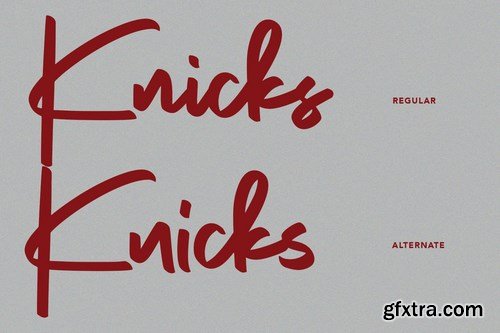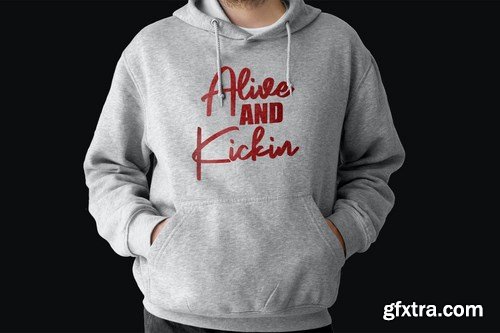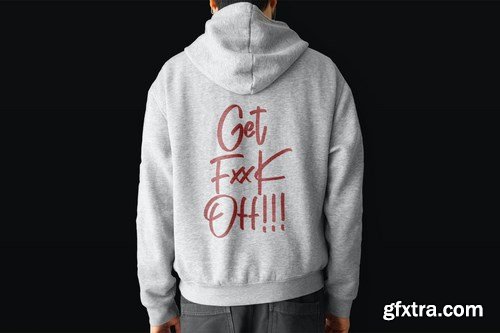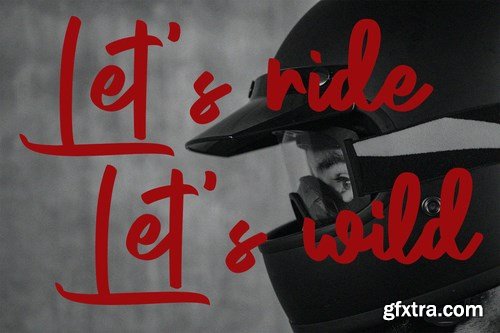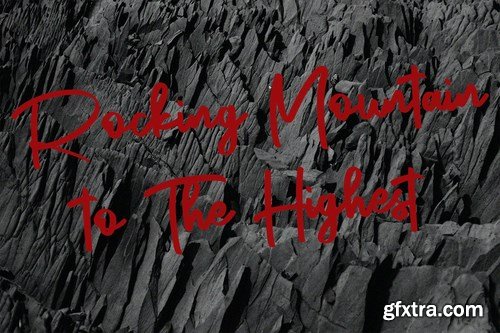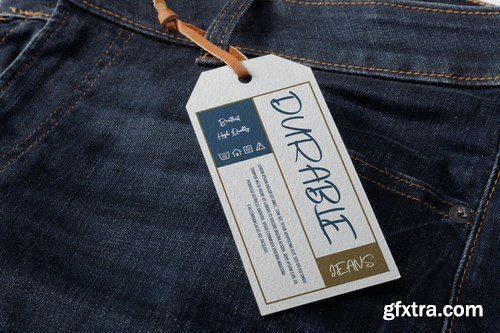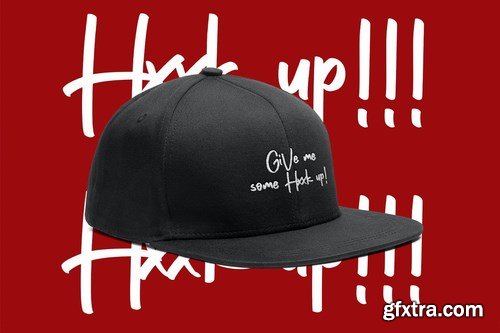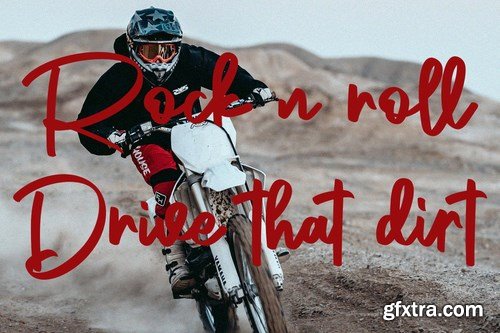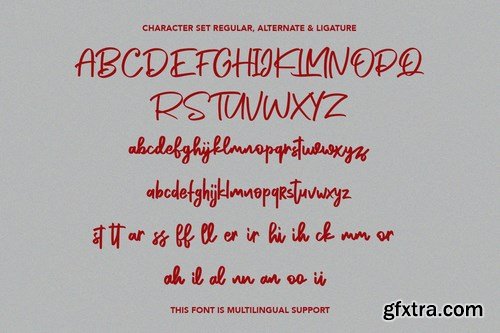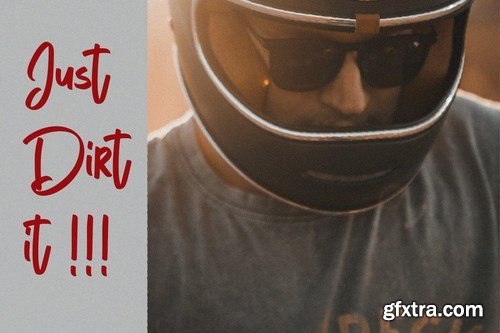
博斯特街潮牌字体
Brothest Street Swag Font
Give your designs an authentic handcrafted feel. Brothest Street Swag Font is perfectly suited to logo, stationery, branding, typography quotes, magazine or book cover, website header, clothing, branding, packaging design, restaurant and more.
Brothest Street Swag Font